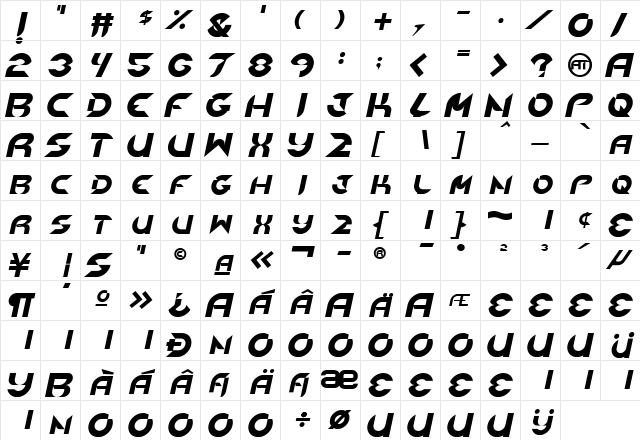
NewDigital Original
Design Context for NewDigital Typeface
NewDigital has a distinctly futuristic character, with geometric precision and clean angles that feel at home in technology, gaming, and sci-fi contexts.
Pro Tip: Use NewDigital in combination with a neutral sans for body text. Let it define the brand voice in headlines while keeping reading comfortable elsewhere.